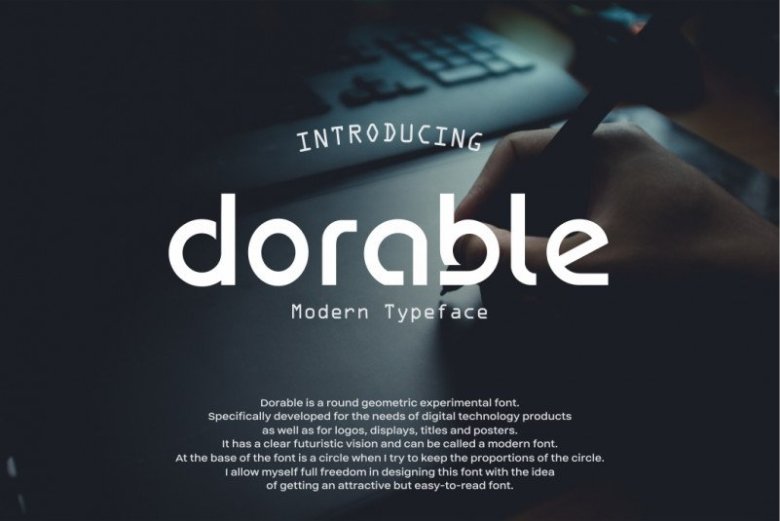
Dorable Display Typeface
Dorable Display Typeface is a round geometric experimental font. Specifically developed for the needs of digital technology products as well as for logos, displays,
titles and posters. It has a clear futuristic vision and can be called a modern font. At the base of the font is a circle when I try to keep the
proportions of the circle. I allow myself full freedom in designing this font with the idea of getting an attractive but easy-to-read font.